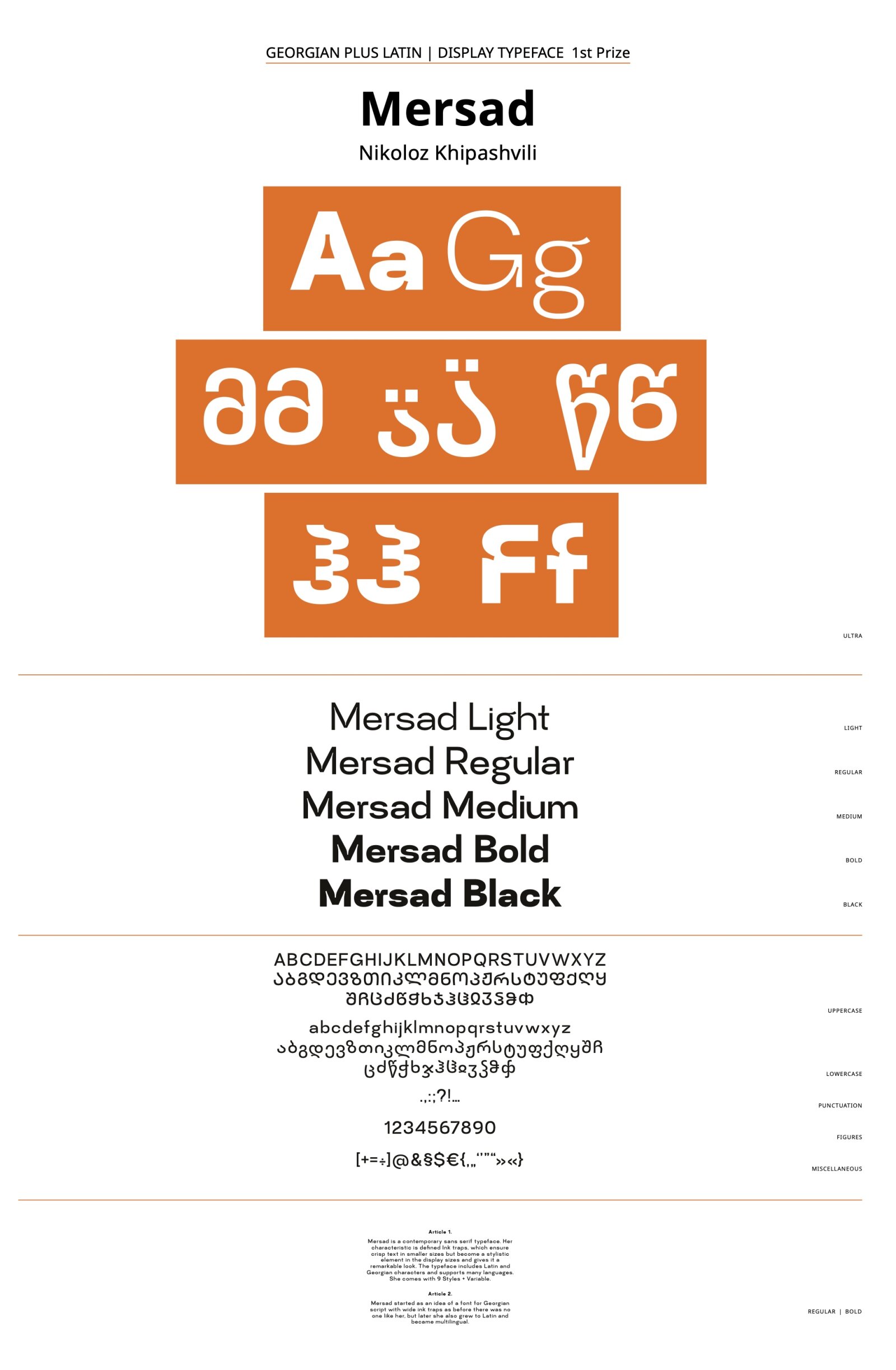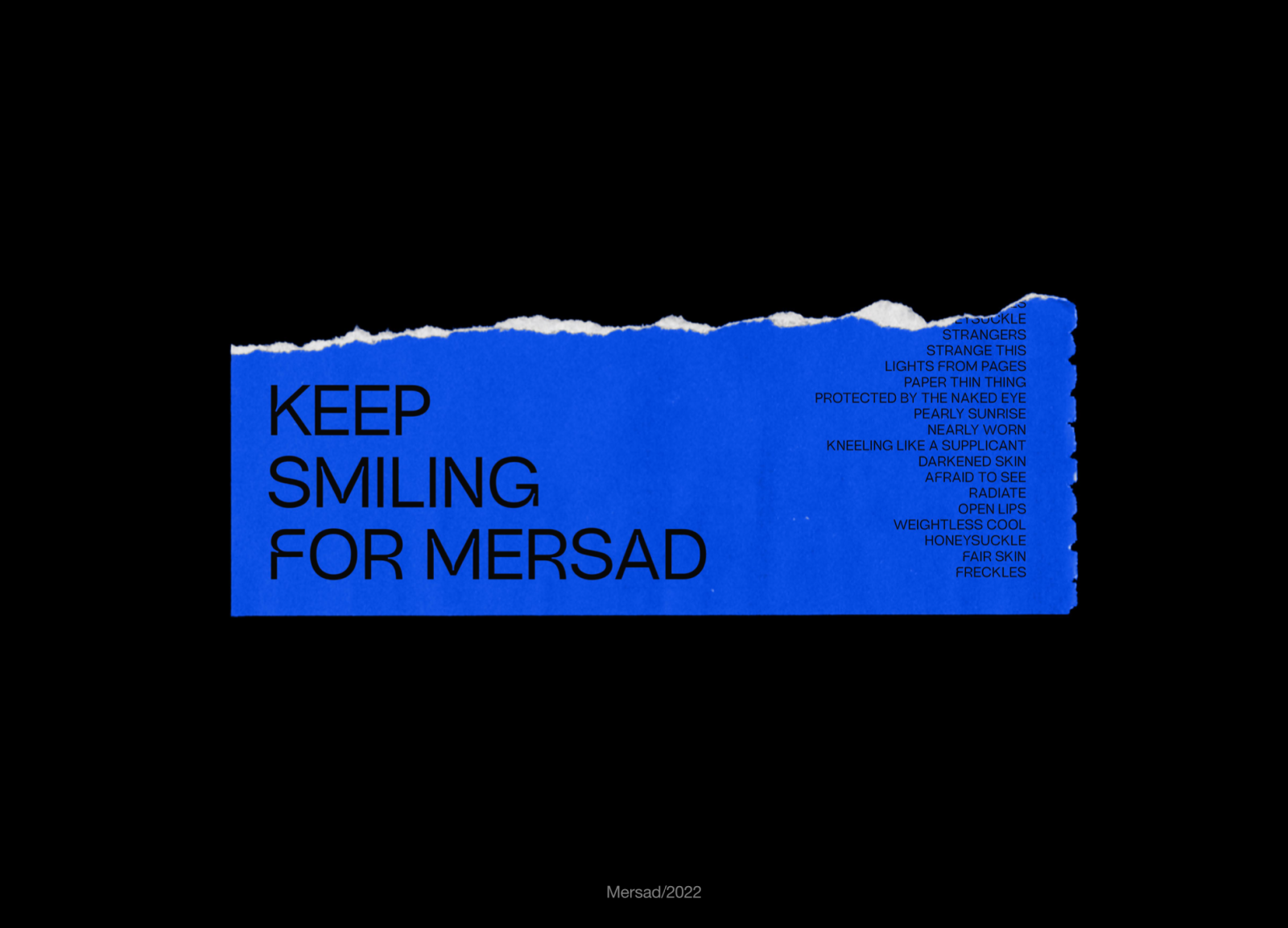
Mersad
by Nikoloz Khipashvili
Georgian
Contemporary sans serif typeface. Her characteristic is defined Ink traps, which ensure crisp text in smaller sizes but become a stylistic element in the display sizes and gives it a remarkable look. The typeface includes Latin and Georgian characters and supports many languages. She comes with 9 Styles + Variable. It started as an idea of a font for Georgian script with wide ink traps as before there was no one like her, but later she also grew to Latin and became multilingual.